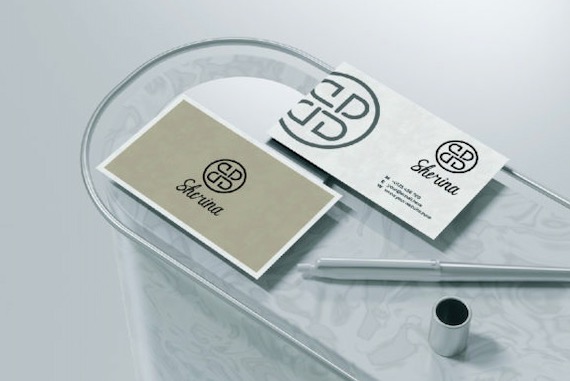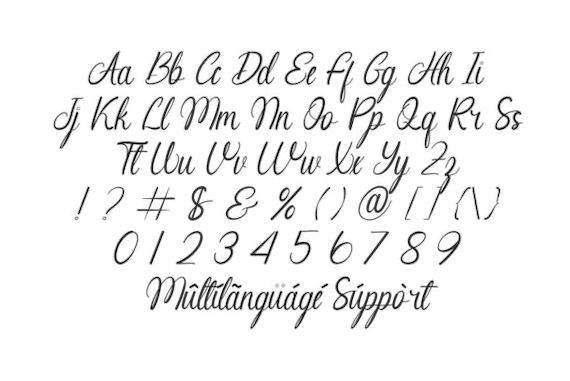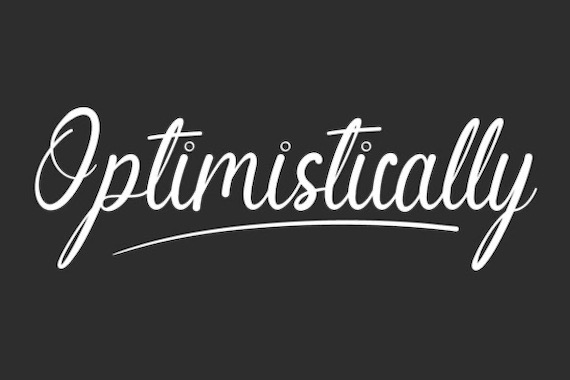
Optimistically is an elegant beautiful handwritten font that was created and shared by Vintype. It has gorgeous stunning characters, along with ligatures & alternatives. This font is ideal for weddings, florists, sales marketing, professionals, dentist, real estate, music, videography, and more. Optimistically is PUA encoded which means you can access all of the glyphs and swashes with ease?
Optimistically Handwritten Script Font